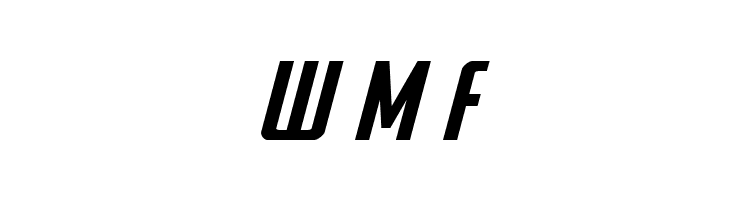
Watchtower Expanded Italic Font
A bold, expanded, and italicized font with a modern and dynamic style.
Watchtower Expanded Font
A bold, geometric font with tall, narrow characters and high contrast.